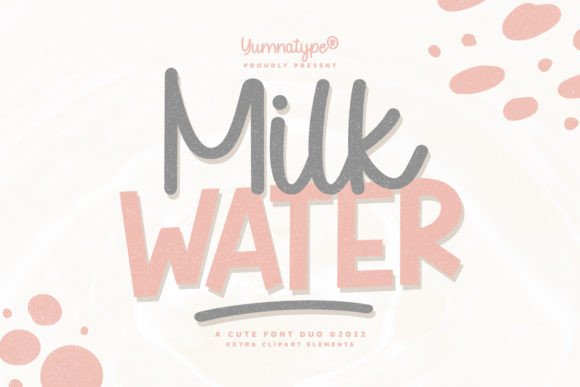
Introducing Milk Water Duo Font, the perfect choice for anyone seeking to add a touch of warmth, friendliness, and playfulness to their designs. This stunning font family, created by the talented Yumna_Type, is the perfect choice for a range of projects, from social media graphics to branding materials, invitations, and so much more.
The Milk Water display font is the star of the show, exuding an energy that is both friendly and playful. Its bold and distinctive lettering ensures that your message will stand out and be noticed, making it perfect for headlines, titles, and other eye-catching elements of your design.
But that's not all - the Milk Water script font is equally stunning, bringing a touch of modern elegance to your projects. Whether you're creating wedding invitations, business cards, or other sophisticated designs, this font has got you covered.
One of the greatest things about the Milk Water Duo Font is the way that the two styles complement each other perfectly. The result of their combination is a warm and cute aesthetic that is sure to appeal to a wide range of users.
So why choose Milk Water Duo Font for your next project? For starters, it's an incredibly versatile font family that can be used in a wide range of contexts. Whether you're designing for print or web, social media or branding, Milk Water is sure to impress.
But it's not just its versatility that makes Milk Water so special. This font family is also packed with emotion and creativity, making it perfect for anyone looking to add a personal touch to their designs. Its friendly, playful energy is contagious, and its modern elegance is simply breathtaking.